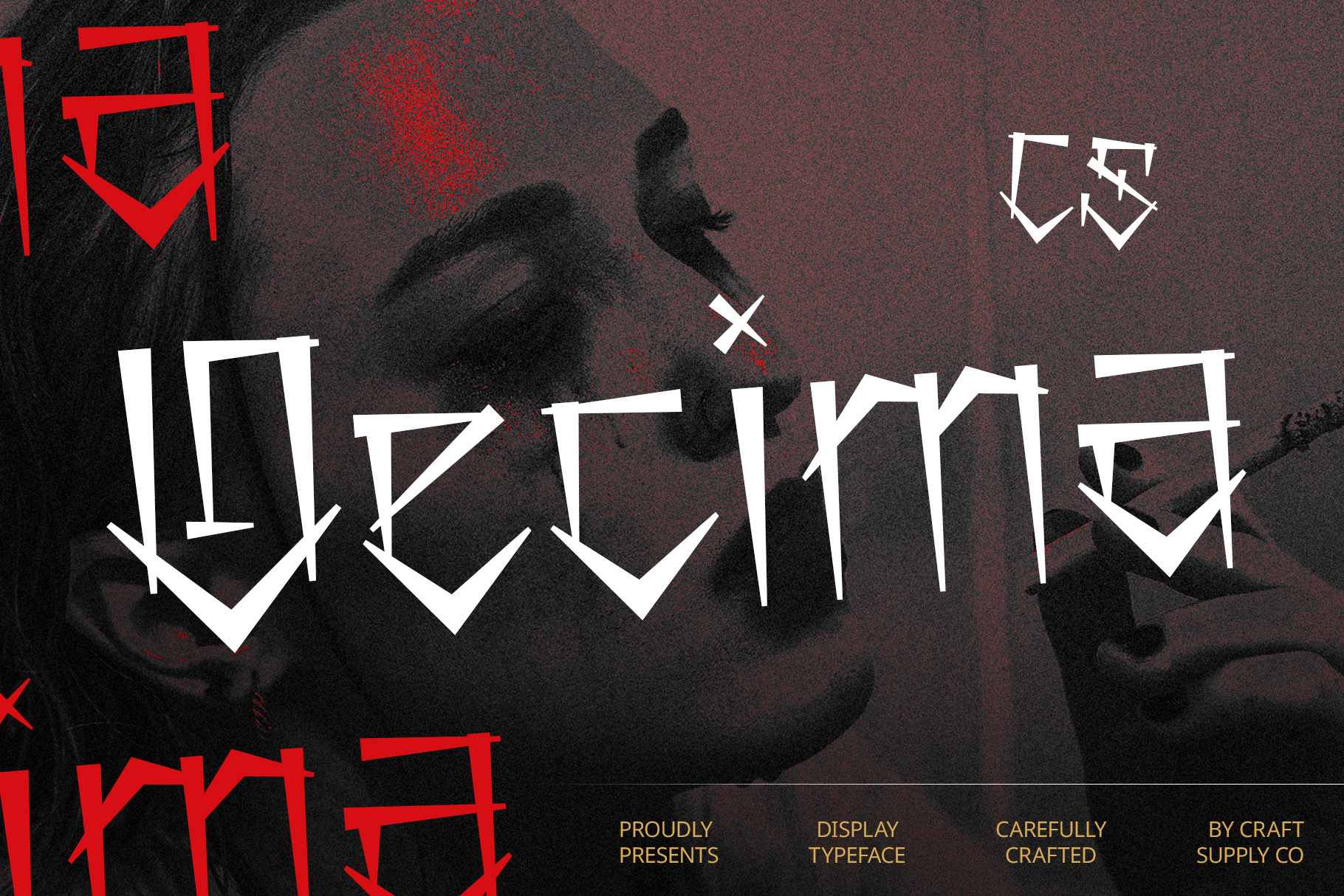
CS Decima – Graffiti Font
Urban Creativity and Rebellion CS Decima is a bold graffiti display font that brings the raw, expressive energy of street art to your designs. Featuring dynamic curves, irregular shapes, and exaggerated strokes, it mimics the authentic look of graffiti, capturing the rebellious and creative spirit of urban culture. This font is perfect for projects that aim to break the mold and convey a sense of freedom and individuality.
Expressive, Edgy Design The bold and irregular letterforms of CS Decima offer a visually striking and dynamic style, making it ideal for designs that need a bold and edgy aesthetic. Its graffiti-inspired look adds a creative and rebellious flair to posters, branding, and logos, giving a sense of energy and spontaneity. The font is designed to stand out and leave a lasting impression.
Perfect for Youth-Oriented and Creative Projects With its street-art influence, CS Decima is perfect for youth-oriented branding, music promotions, and urban-themed projects. It’s great for designs that want to reflect modern, artistic, and countercultural vibes. The font’s expressive forms make it ideal for adding a raw, streetwise edge to creative designs, whether it’s used for posters, social media, or promotional materials.